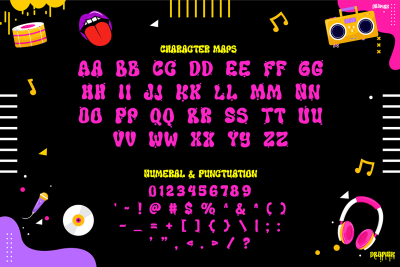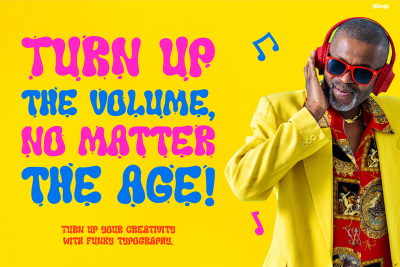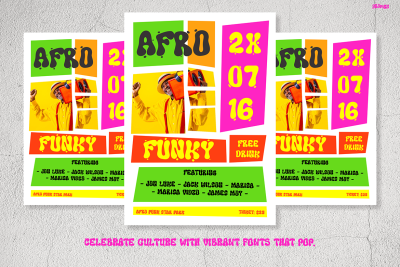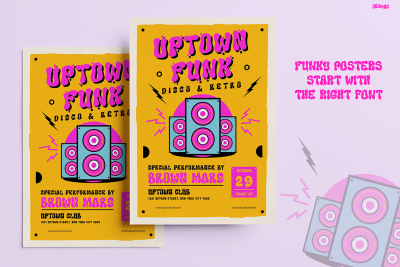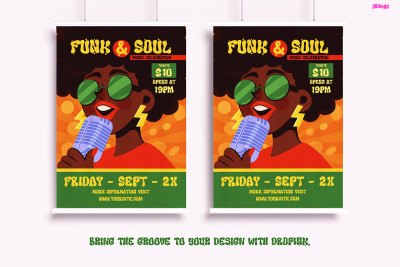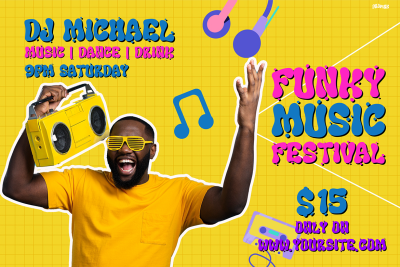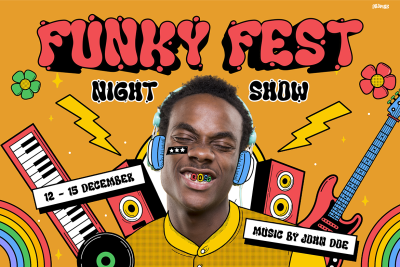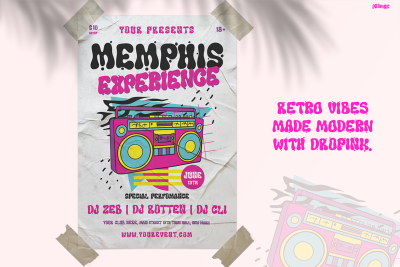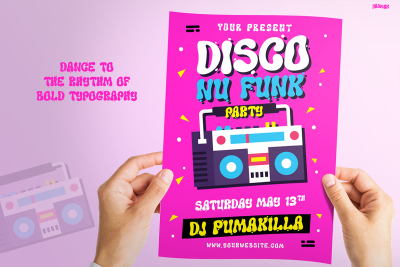
Music Font Dropink is a bold and energetic typeface inspired by music and retro pop culture. Its curvy, bubbly letters with a dripping effect immediately catch the eye. Designed to evoke fun and nostalgia, this font brings the vibrant spirit of boomboxes, mixtapes, and neon lights to life. Moreover, it combines vintage vibes with a modern twist, adding a playful charm to your designs.
The vibrant yellow typography, paired with a bright pink background, further enhances its cheerful and lively personality. As a result, Dropink makes a bold statement in any setting, ensuring your projects grab attention. Additionally, its bold and quirky style creates a memorable impression, whether used in print or digital formats.
Furthermore, Dropink balances creativity with readability, making it versatile and suitable for various applications. It is perfect for titles, posters, and social media graphics that demand a bold presence. Thanks to its fresh and vibrant look, this typeface guarantees your projects will stand out.
By seamlessly blending retro aesthetics with modern trends, Music Font Dropink offers a distinctive style. Therefore, itโs an excellent choice for projects that aim to feel both nostalgic and innovative. Ultimately, this font is about delivering energy, fun, and creativity to any design.
Music Font Dropink Perfect For
Music Font Dropink is an ideal choice for professionals and creatives in the music or entertainment industry. For instance, bands, DJs, and event organizers can use it to design posters, banners, and festival merchandise that radiate energy. It also works wonderfully for album covers, vinyl art, and promotional materials for concerts or music festivals.
In addition, social media creators and marketers will find Dropink incredibly useful for crafting engaging and eye-catching visuals. Itโs particularly effective for Instagram posts, ads, and stories targeting Gen Z and millennials. Moreover, its youthful and funky vibe makes it an excellent choice for lifestyle brands, nightclubs, and themed events.
Beyond music and entertainment, Dropink is a fantastic choice for childrenโs projects. For example, its bubbly and fun design is ideal for book covers, educational posters, and playful learning materials. Additionally, it suits family-friendly branding, adding a whimsical touch to designs for younger audiences.
Fashion brands that embrace bold, retro aesthetics can also benefit from Dropink. For instance, it works beautifully in logos, apparel designs, or packaging that aims to stand out. Furthermore, party planners and event organizers can use this font to create vibrant flyers, invitations, and promotional visuals that demand attention.
Ultimately, Music Font Dropink is perfect for anyone looking to add personality, charm, and energy to their designs. Whether youโre designing for music, fashion, childrenโs projects, or event branding, Dropink ensures your work leaves a lasting impression.